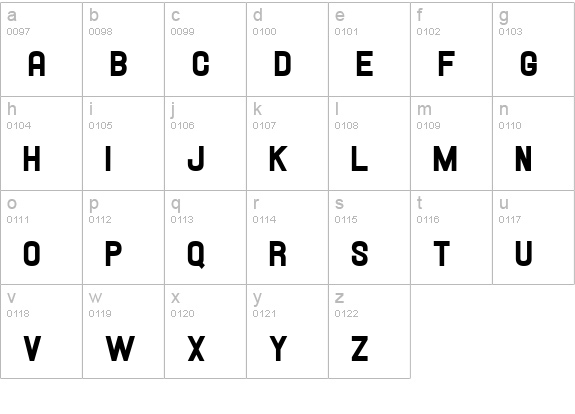
Hallandale SC Heavy JL is a heavy, high-impact variant in the Hallandale typeface family \xE2\x80\x94 well suited to high-impact headlines, posters, and display advertising.
Hallandale SC Heavy JL is a bold and striking typeface that exudes power and strength. With its thick lines and solid structure, this font demands attention and makes a bold statement. The heavy weight of the letters adds a sense of authority and confidence, making it perfect for headlines, titles, and other attention-grabbing designs. What sets Hallandale SC Heavy JL apart is that it is available for free download at FontsMarket.com. This means that designers and creatives can access this powerful font without any cost, making it an excellent choice for those on a budget or anyone looking to add a touch of impact to their designs without breaking the bank. Whether you're creating a poster, a logo, or a website header, Hallandale SC Heavy JL will make your text stand out and leave a lasting impression. Its bold and commanding presence will draw the viewer's eye and instantly convey a sense of strength and professionalism. Download Hallandale SC Heavy JL for free at FontsMarket.com and elevate your designs with this powerful and impactful typeface.